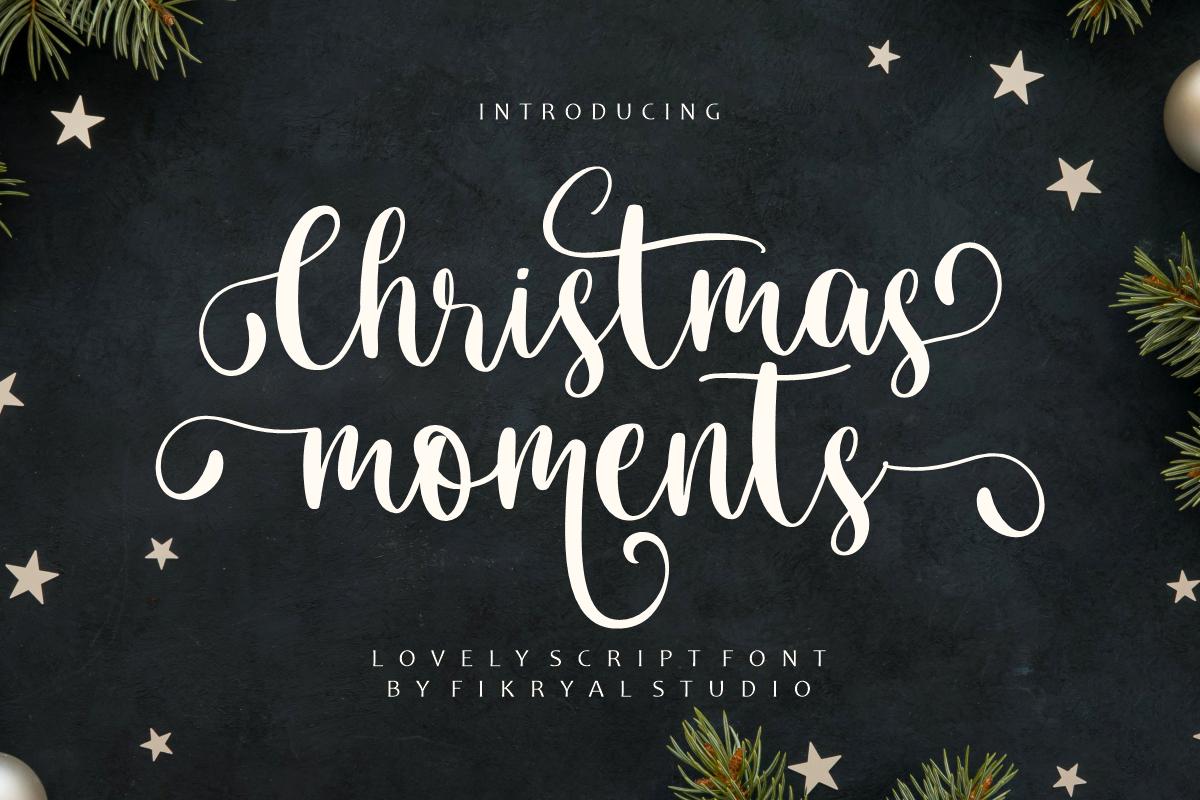
Christmas Moments Font Description
Christmas Moments is a festive and sweet calligraphy typeface with characters that dance along the baseline. It will add a luxury spark to any design project that you wish to create! This font is PUA encoded which means you can access all of the amazing glyphs and ligatures with ease!